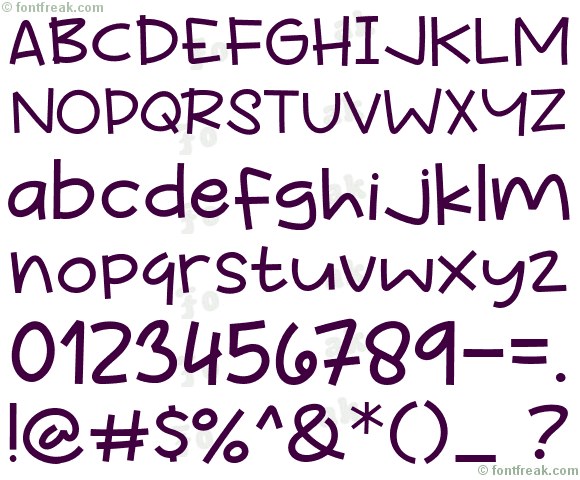
Kopi Panas
Kopi Panas, designed by Syaf Rizal, is a charming display font that embodies a playful yet elegant aesthetic. This font falls into the category of decorative typefaces, characterized by its unique, rounded letterforms that evoke a sense of warmth and approachability. The stroke weight is consistent, providing a balanced appearance, while the gentle curves and soft edges add a friendly touch. With moderate spacing between the characters, Kopi Panas ensures readability while maintaining its artistic flair.
Ideal for a variety of creative applications, Kopi Panas shines in contexts such as café menus, where it can convey an inviting atmosphere, or on promotional materials for artisanal coffee shops. Its playful nature makes it a great choice for children’s book covers or educational materials aimed at young audiences. Additionally, the font can be utilized effectively in branding for lifestyle blogs or social media graphics, allowing content creators to connect with their audience through its friendly vibe.
The target audience for Kopi Panas includes graphic designers seeking to add a unique touch to their projects, small business owners looking for an appealing font to enhance their brand identity, and content creators who want to capture attention in a visually engaging way. The accessibility of this font as freeware makes it an attractive option for anyone in need of high-quality typography without the associated costs.
What sets the Kopi Panas font apart is its ability to convey personality while remaining versatile. Its inviting style makes it perfect for various applications, ensuring that it can adapt to diverse creative needs. Whether you’re designing a logo, crafting an invitation, or creating social media posts, the Kopi Panas font free download is an excellent addition to any designer’s toolkit.